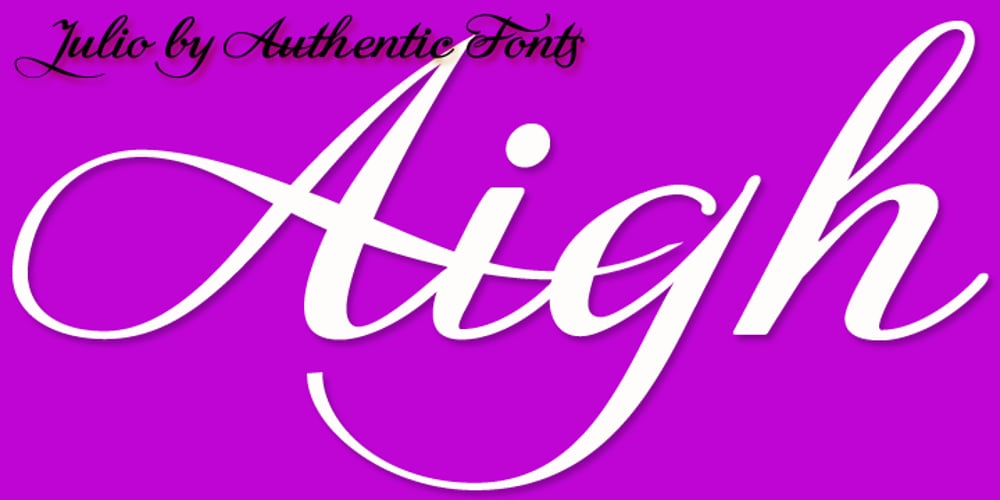
Julio
Julio font
Julio Font Family was designed by Julius Wiescher and published by Authentic. Julio contains 1 styles and family package options. Julio is designed in the best tradition of English scripts. It comes in very handy if you want to have an elegant touch.